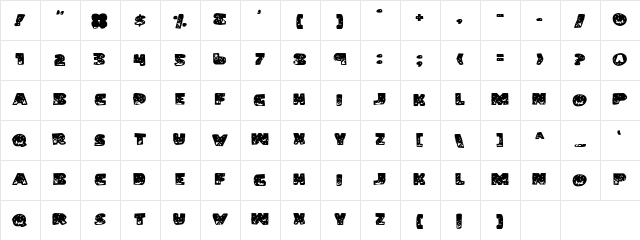
Land Shark Grunge Grunge Free Font
Land Shark Grunge Grunge
Design Context for Land Shark Grunge
Land Shark Grunge embraces imperfection - its rough, textured character adds raw authenticity to designs that want to feel lived-in and unconventional.
Pro Tip: Use Land Shark Grunge at larger sizes where the texture and irregularity of each letterform can be clearly seen - it loses its character at small sizes.